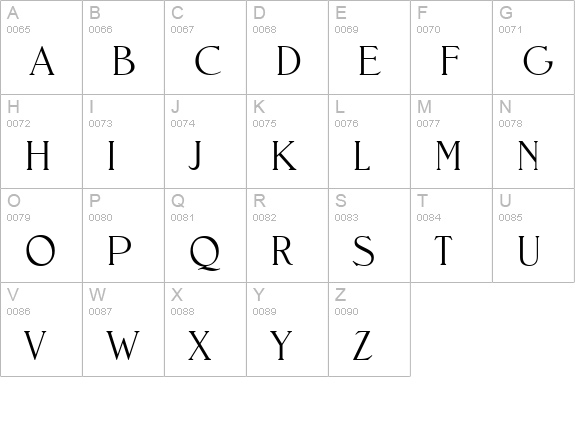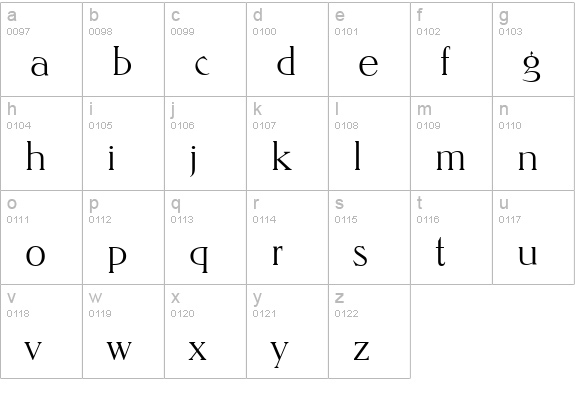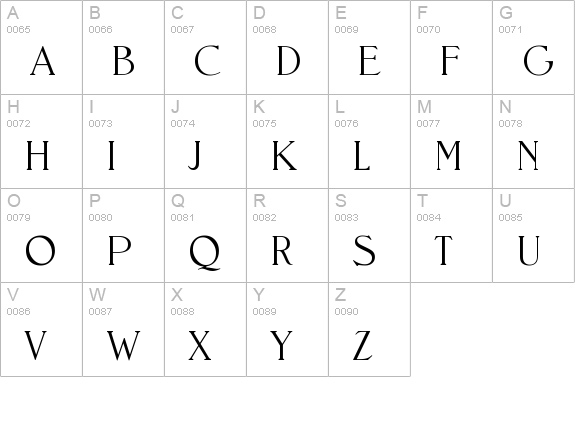
NevadaSerial-Xlight-Regular is the standard, neutral variant in the NevadaSerial typeface family \xE2\x80\x94 well suited to general body text, paragraphs, and standard typographic work.
NevadaSerial-Xlight-Regular font is a sleek and modern typeface that exudes elegance and sophistication. With its clean lines and balanced proportions, this font is perfect for a wide range of design projects, from branding to editorial design. The light weight of the font adds a touch of delicacy and refinement, making it ideal for conveying a sense of sophistication and style. What's even better is that NevadaSerial-Xlight-Regular font is available for free download at FontsMarket.com. This means you can easily access this beautiful font and use it in your projects without any cost. Don't miss out on this amazing opportunity to enhance your designs with the stunning NevadaSerial-Xlight-Regular font for free!